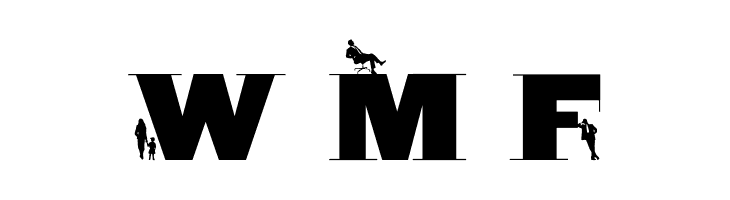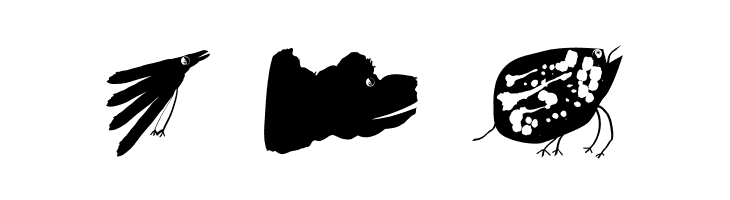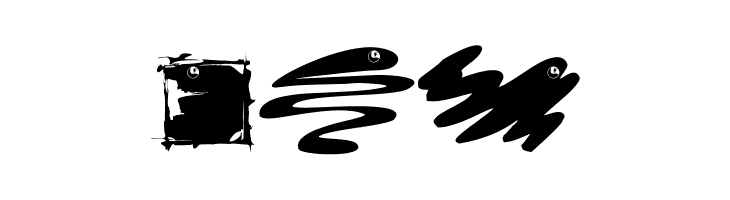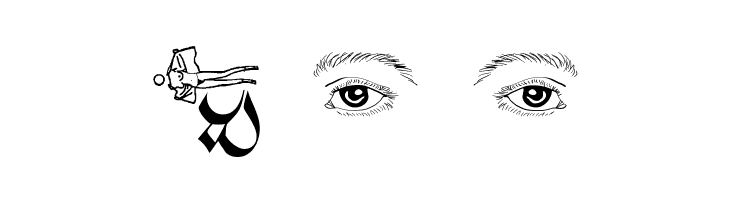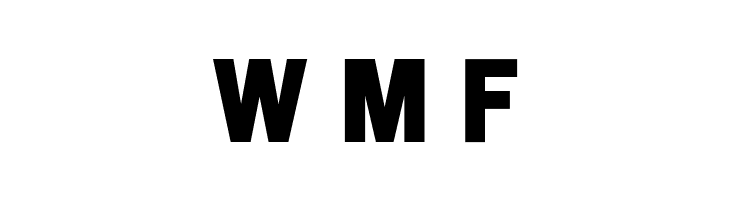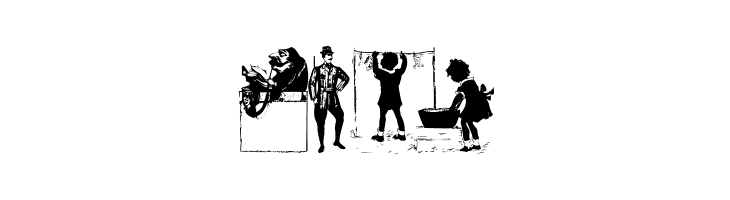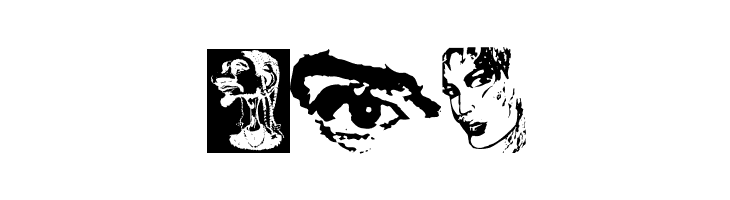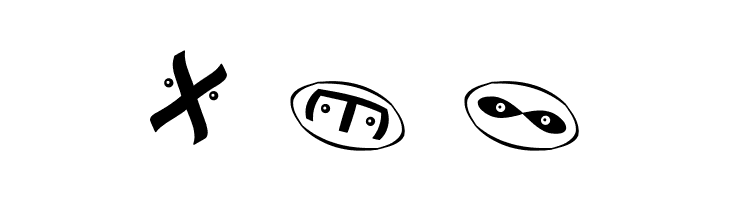
• BlaxxConPersona
A bold, playful display font with silhouette figures interacting with the letters.
• MicroBeings
A whimsical and decorative font featuring abstract, creature-like characters.
• MicroBeingsTwo
An abstract, artistic font with bold, dynamic brushstroke-like characters.
• LookBrokenTypes
A decorative font combining Gothic style with artistic illustrations.
• MasKs
Decorative font with illustrated masked faces as glyphs.
• SansSerifVarying-Black
A bold, sans-serif font with thick, uniform strokes and strong visual impact.
• LineartOne
A decorative font with intricate line art illustrations for each character.
• OldFashionPeople
A collection of vintage illustrations depicting nostalgic scenes and characters.
• WebFolks
An artistic and illustrative font with unique character designs.
• Othermil
A collection of abstract and geometric symbols in various shapes.